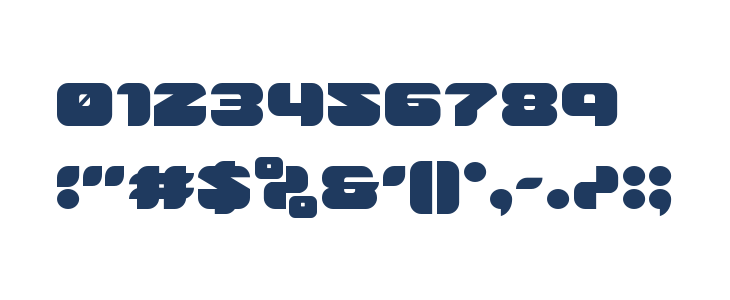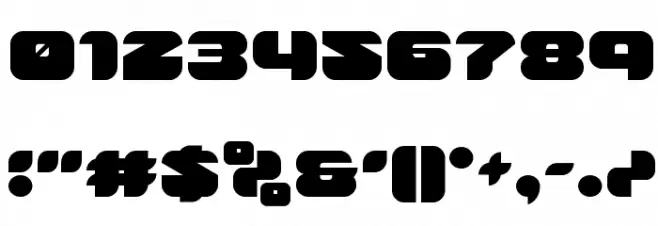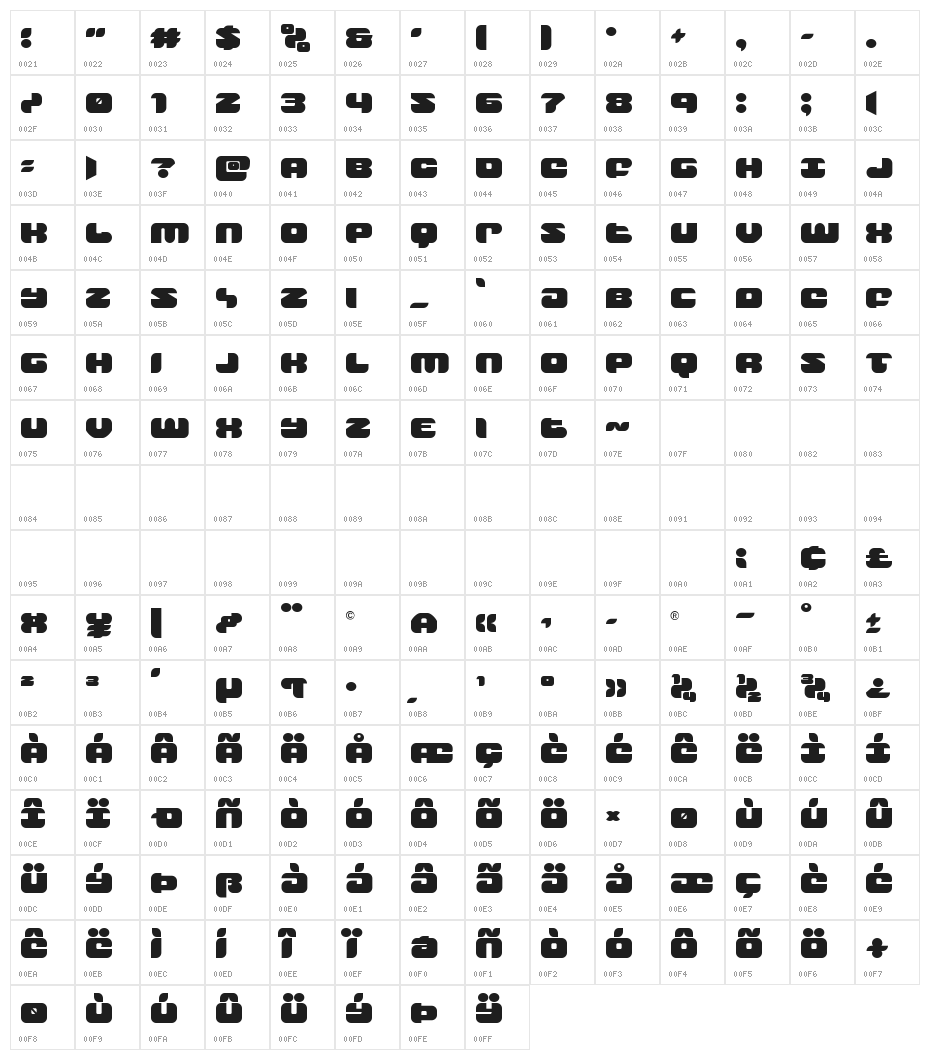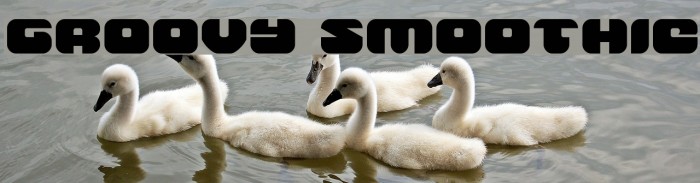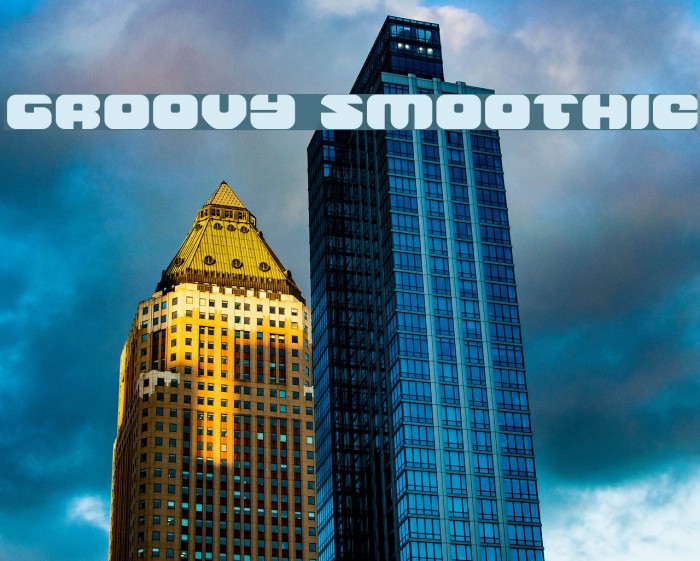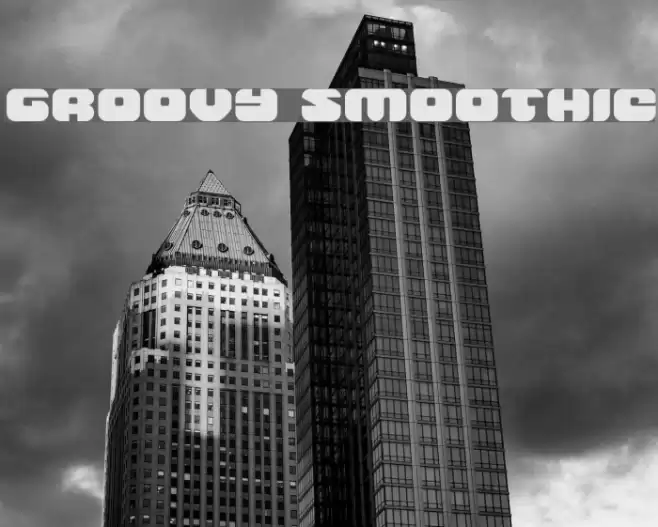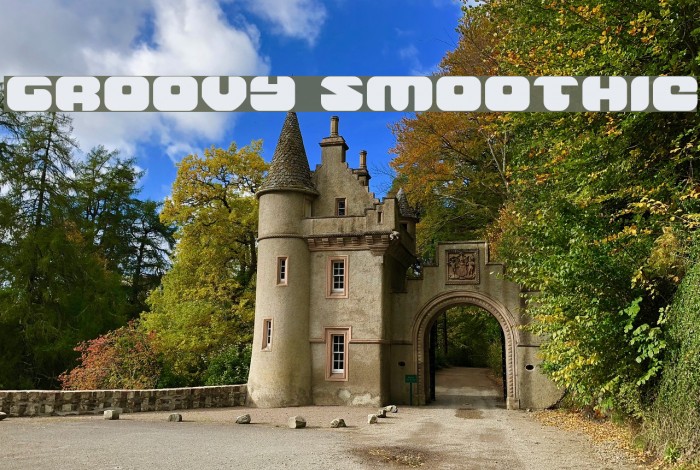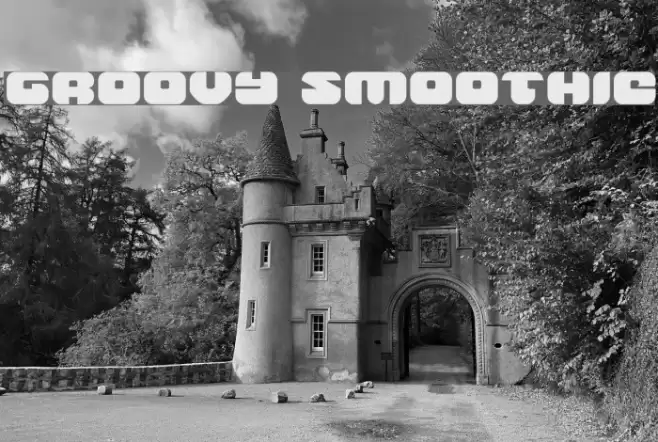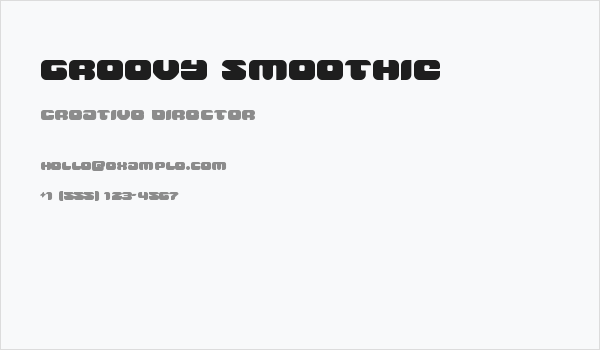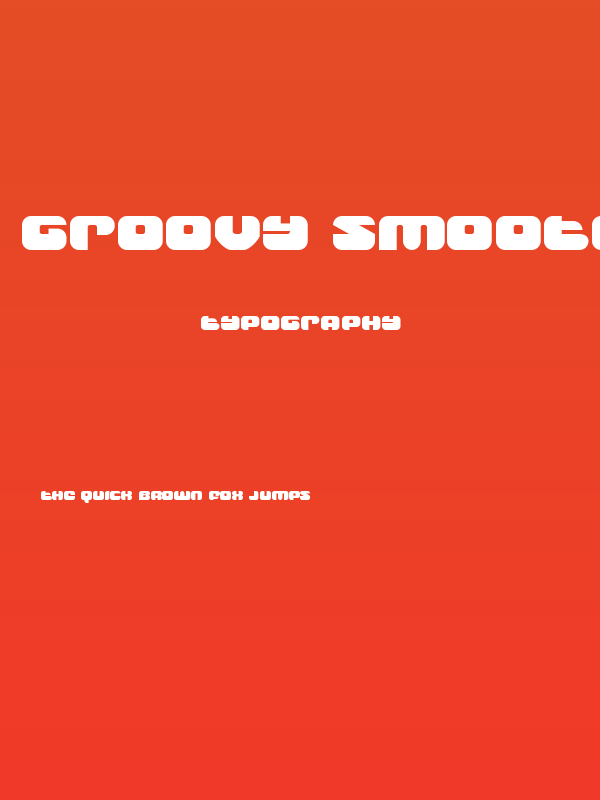
Groovy Smoothie Font
Groovy Smoothie Description
This font features a bold, rounded style with a playful and modern aesthetic. The characters are wide and have a smooth, flowing appearance, making them stand out with a strong visual presence. The rounded edges and thick strokes give it a friendly and approachable feel, suitable for projects that require a touch of fun and creativity. The uniformity in stroke width across all characters ensures a cohesive look, while the unique shapes of certain letters add an element of surprise and interest.